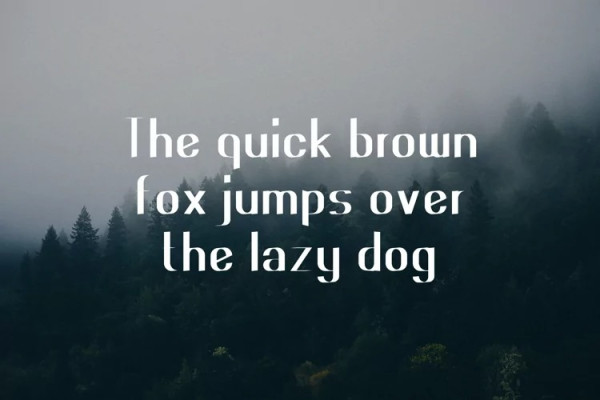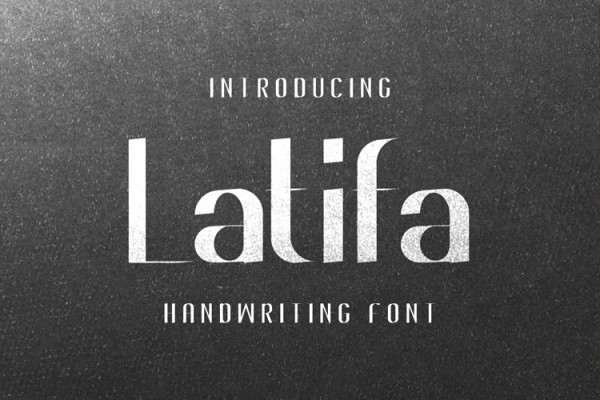
Latifa Font
Latifa Font is a unique and modern display font, with a strong and memorable impression. So don’t wait, make it your font of choice today, and take your designs to the next level!